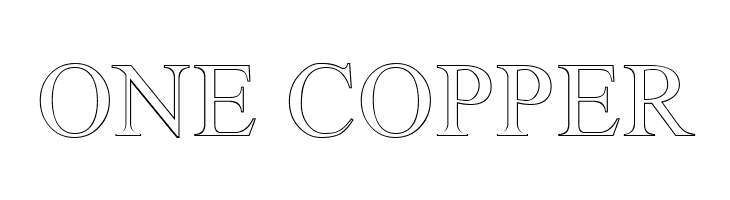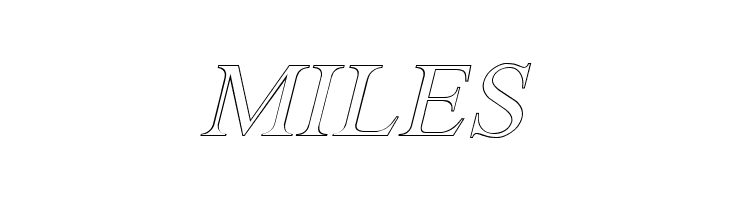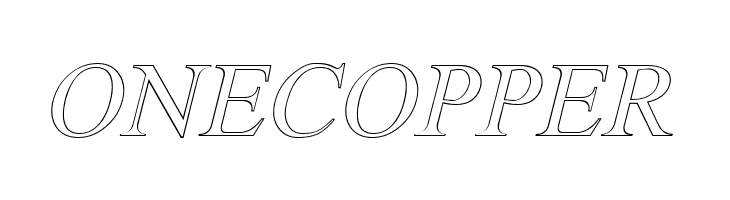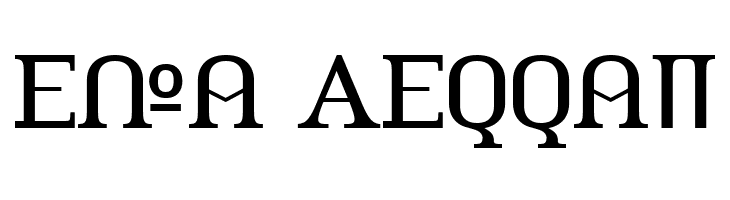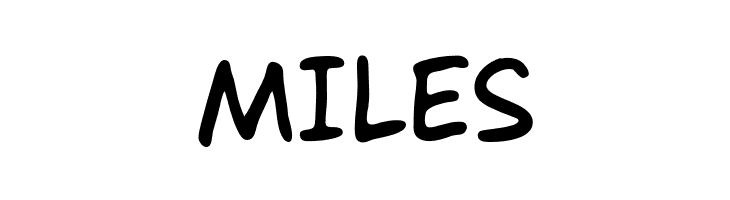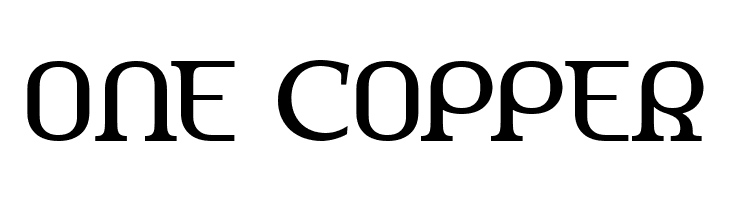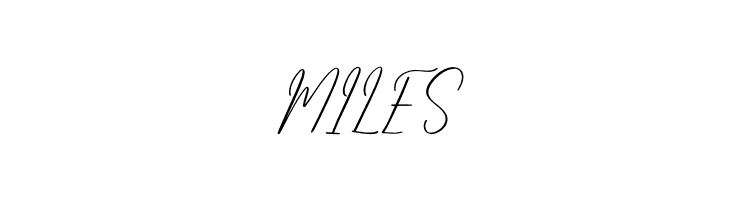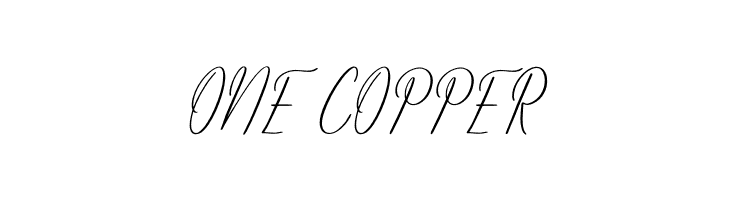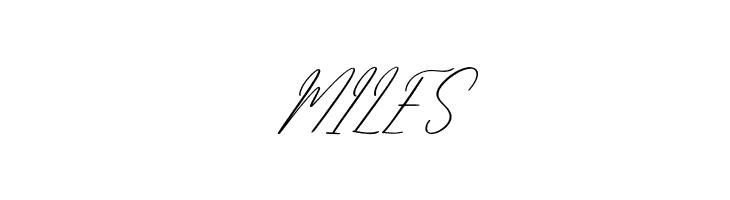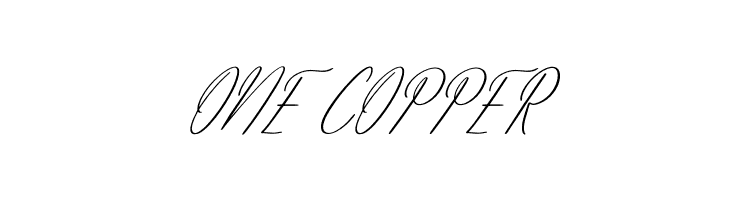
• Americorps Semi-Italic
A bold, semi-italic font with a dynamic and modern style.
• Americorps Straight
A bold, geometric font with a strong, modern aesthetic.
• Amerika
( Fonts by Apostrophic Labs )
A modern serif font with elegant curves and strong vertical emphasis.
• Amerika
A modern serif font with balanced proportions and distinct serifs.
• Amerika Alternates
A sophisticated serif font with a blend of classic and modern elements.
• Amerika Sans
A modern, geometric sans-serif font with a clean and sleek design.
• Amerika Signature Demo Regular
A sophisticated handwritten font with fluid, cursive strokes.
• AmerikaPro
A modern serif font with bold, structured characters and elegant curves.
• AmerikaPro
• Amerta Misty DEMO Regular
An elegant script font with flowing, interconnected letters and refined flourishes.
• Amertano
A fluid, cursive script font with elegant, interconnected strokes.
• Amerton Outline
( Roger White - web.archive.org/web/20120416090521/www.rogersfonts.org.uk/ )
An elegant serif font with a modern outline design.
• Amerton Outline Italic
( Roger White - web.archive.org/web/20120416090521/www.rogersfonts.org.uk/ )
An elegant italic outline font with a refined and artistic style.
• AmeryBrush
( Fonts by Cuong Truong Van )
A bold, brush-style font with dynamic, hand-painted strokes.
• Ames
( Purastik Graphics - purastik.net/ames )
A playful, handwritten-style font with rounded, informal letterforms.
• Ames
( Fonts by Purastik Graphics )
A playful, handwritten font with rounded edges and a casual style.
• Amethykan DEMO VERSION
A refined, cursive script with tall, slender characters and a handwritten feel.